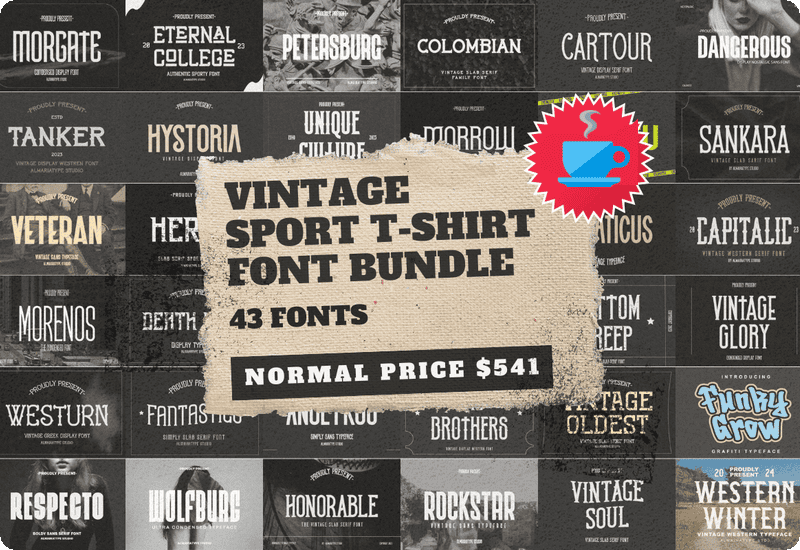
Typography plays a crucial role in T-shirt design, branding, and marketing. Whether you’re a graphic designer, print-on-demand seller, or apparel brand, the Vintage Sport T-Shirt Font Bundle offers a curated collection of 43 high-quality fonts that bring a classic, retro aesthetic to your work.
Designed for versatility and style, this collection includes slab serif, sans serif, display, and blackletter fonts, each with a distinctive vintage sports appeal. With a commercial license included, you can use these fonts for unlimited personal and professional projects without restrictions.
This premium collection features a variety of fonts, carefully crafted for sports-themed, collegiate, and retro apparel designs. Here’s a preview of some of the fonts included:
✔ Colombian Slab Serif Font – Strong and bold, perfect for vintage sports jerseys.
✔ Rockstar Sans Serif Font – A modern yet classic font for eye-catching designs.
✔ Vintage Oldest Slab Serif Font – Ideal for old-school athletic T-shirts and merchandise.
✔ Honorable Slab Serif Font – A professional and sleek font for custom branding.
✔ Eternal College Slab Serif Font – The perfect choice for collegiate-themed T-shirts.
✔ Dangerous Sans Serif Font – Adds a rugged, edgy feel to apparel and logos.
✔ Vintage Glory Display Font – A retro-style font great for bold statement designs.
✔ Death Note Display Font – A gothic-inspired font for a dark and dramatic aesthetic.
These fonts cover a wide range of styles, making it easy to mix and match to create unique, vintage-inspired designs.
1. Professional Quality Fonts for Sports and Retro-Themed Designs
Each font in this collection is crafted with precision, ensuring sharp, clean lines and high readability. Whether you’re designing sports apparel, team logos, or vintage-inspired T-shirts, these fonts provide the authentic retro look that appeals to a wide audience.
4. Versatile and Timeless Font Styles
The fonts in this bundle cater to a variety of design aesthetics, from bold and rugged to sleek and modern. Whether you need a college-style font for a varsity jacket design or a retro script for a 70s-inspired graphic tee, this collection has you covered.